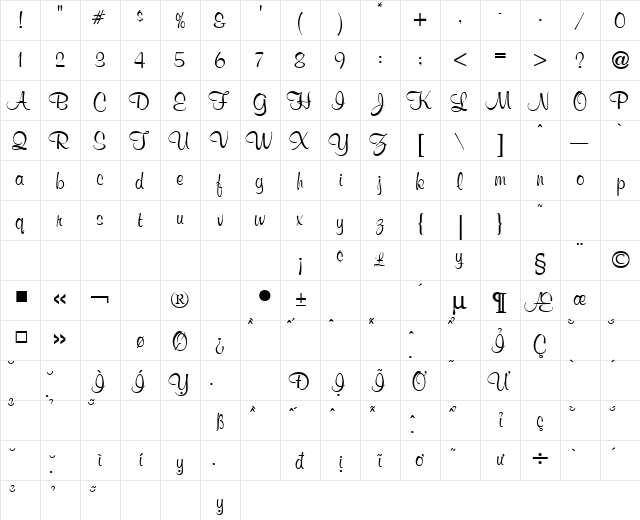
VNI-Murray Bold
Design Context for VNI-Murray Typeface
VNI-Murray is a composed and adaptable typeface that performs quietly and consistently across a wide range of design contexts. Its bold stroke weight gives it real presence on the page.